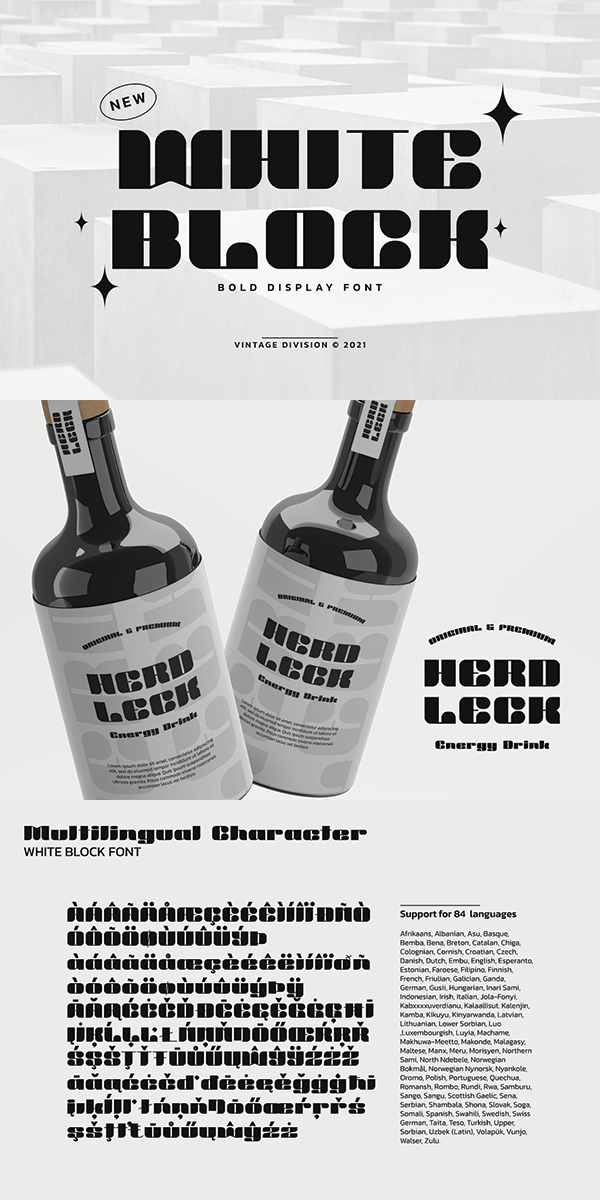
White Block Font
White Block is a bold display font with a modern look. This display font is perfect for anything adventurous, and direct. Designed primarily as a captivating font that easy to read but still stylish.
• Stylistic Sets
• Multilingual Options